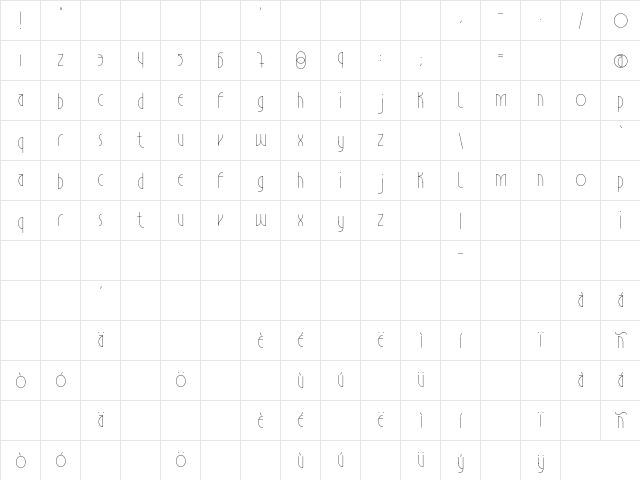
Estilistica Regular
Design Context for Estilistica Typeface
Estilistica offers clean, dependable letterforms without strong stylistic allegiance, making it a practical choice for designers who need flexibility.